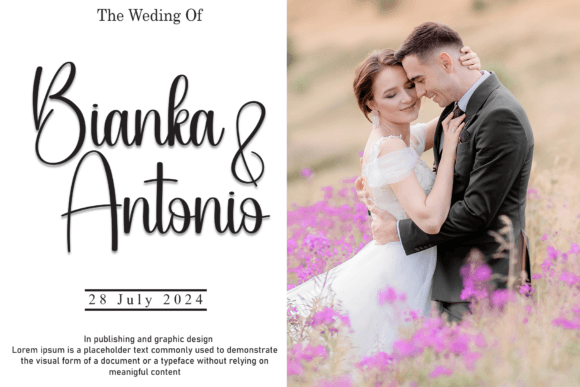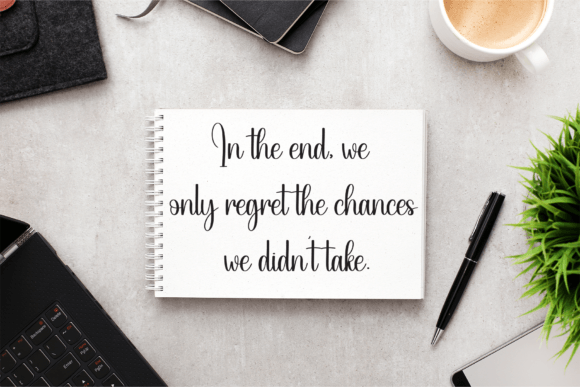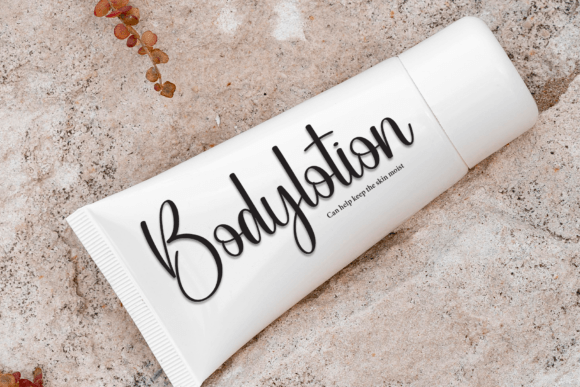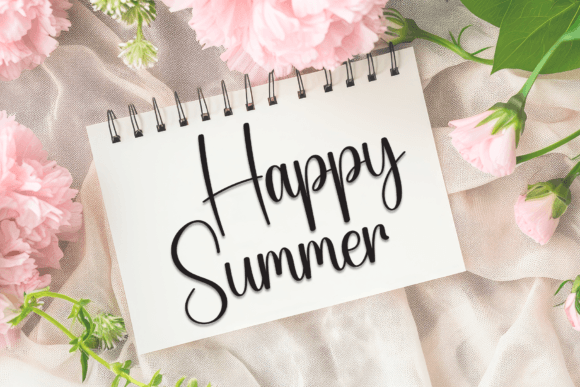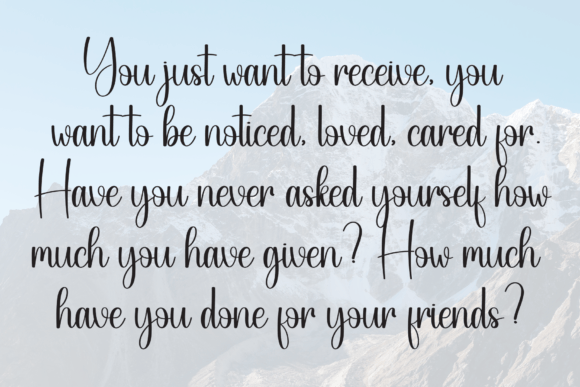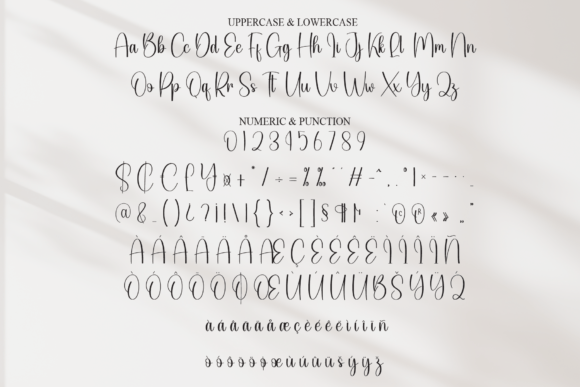
Introducing Brittan Font: Elevate Your Designs with Elegance and Charm
In the world of typography, a font can make all the difference in the aesthetic and feel of a design. For those seeking a touch of sophistication and elegance, the Brittan Font is an exceptional choice. This stylish handwritten script font is designed to bring a sense of charm and refinement to any project, making it perfect for designers and crafters looking to add a personal touch to their work.
The Essence of Brittan Font
Brittan Font is characterized by its flowing, graceful curves that exude a sense of luxury and refinement. Its delicate strokes are meticulously crafted to bring warmth and creativity to your designs, making it an ideal choice for a variety of applications. Whether you’re creating invitations, logos, branding materials, or any other design project, Brittan Font is sure to make a lasting impression.
Key Features of Brittan Font
- Stylish Handwritten Script: Brittan Font boasts a beautiful, handwritten script style that adds a personal touch to any design.
- Elegant and Charming: Its flowing curves and delicate strokes bring an air of elegance and charm, perfect for designs that require a sophisticated look.
- Versatile: Suitable for a wide range of design projects, including invitations, logos, branding, and more.
- Easy to Read: Despite its elegant nature, Brittan Font remains clear and easy to read, making it functional as well as beautiful.
Uses of Brittan Font
The versatility of Brittan Font makes it suitable for various design projects. Here are some of the top uses for this elegant font:
- Invitations: Add a touch of elegance to your wedding invitations, birthday parties, or any other special event.
- Logos and Branding: Use Brittan Font to create unique and memorable logos and branding materials that stand out from the crowd.
- Stationery: Elevate your stationery designs, such as letterheads, greeting cards, and thank you cards, with a sophisticated look.
- Digital Content: Incorporate Brittan Font into your digital content, including social media graphics, blog headers, and website designs, to add a personal and creative touch.
Tips for Using Brittan Font Effectively
To get the most out of Brittan Font, consider the following tips:
- Pair with Complementary Fonts: Combine Brittan Font with simpler fonts to create contrast and make your design more dynamic.
- Adjust Size and Color: Experiment with different sizes and colors to emphasize certain parts of your design and create visual hierarchy.
- Use in Moderation: While Brittan Font is elegant and charming, using it in moderation can make your design more effective. Use it for headings or key messages to draw attention.
Brittan Font is a stylish and elegant handwritten script font that can elevate your designs with its flowing curves and delicate strokes. Perfect for a variety of applications, from invitations and logos to digital content, it adds a personal and sophisticated touch to any project. By incorporating Brittan Font into your design toolkit, you’ll be able to create stunning and memorable designs that leave a lasting impression.
Whether you’re a professional designer or a crafter, Brittan Font is sure to become a favorite in your collection. Its elegance, charm, and versatility make it an excellent choice for anyone looking to add a touch of sophistication to their designs.